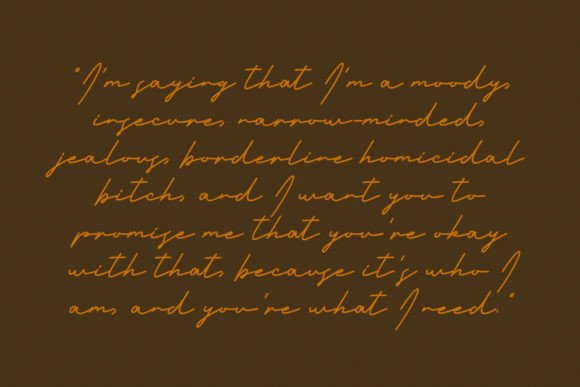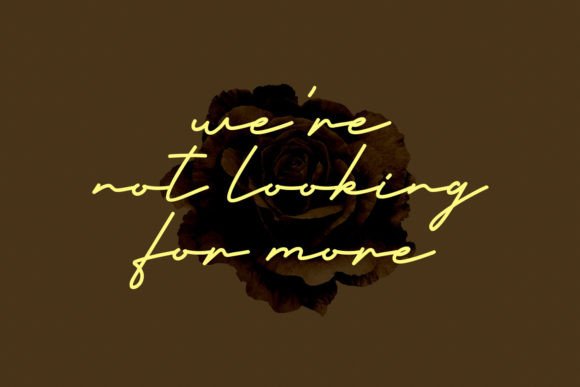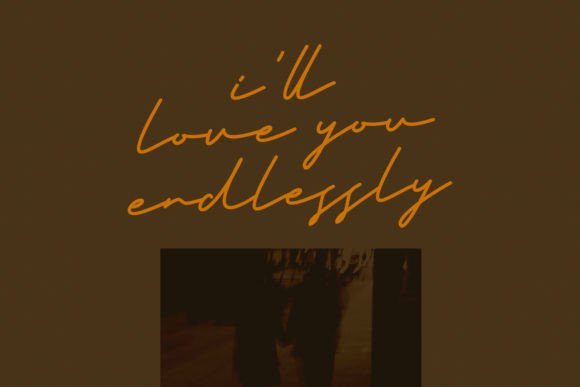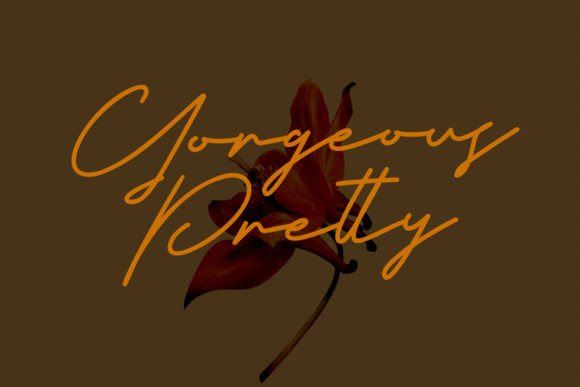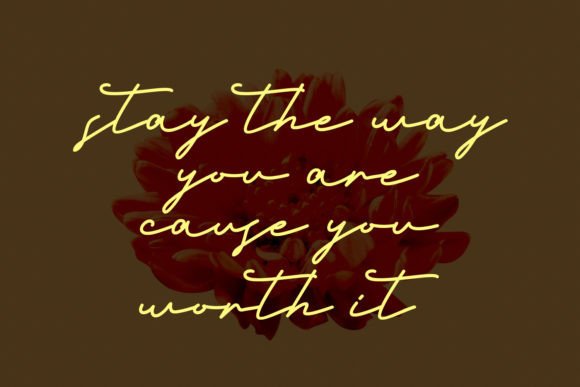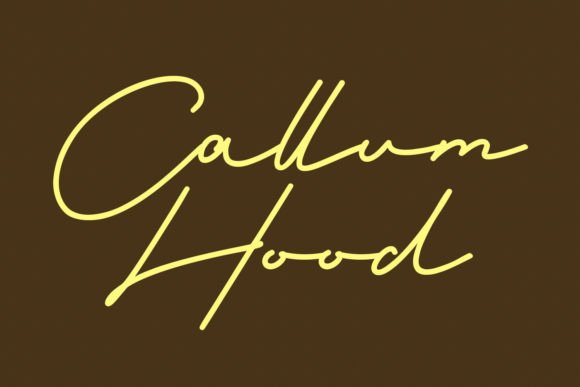
Introduction to Sinyor Yebri Font
Sinyor Yebri is an enchanting signature font.
This versatile script font has a wide spectrum of applications ranging from greeting cards to headlines and is guaranteed to add a romantic feel to your next project .
Key Features of Sinyor Yebri Font
Why Choose Sinyor Yebri Font?
Sinyor Yebri Font offers exceptional quality and versatility, making it a valuable addition to your design toolkit. Whether you’re creating for personal projects or commercial use, Sinyor Yebri Font delivers professional results.